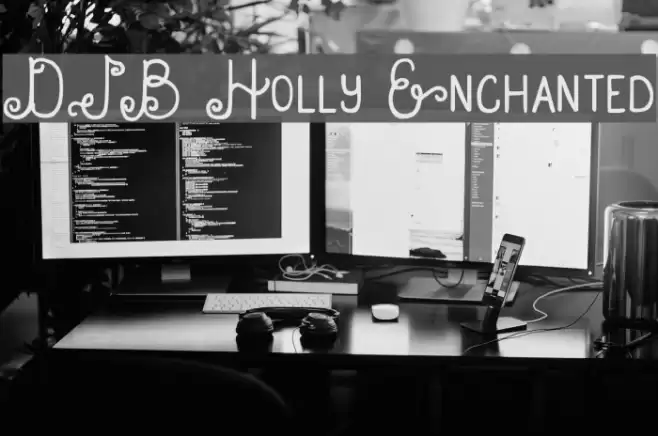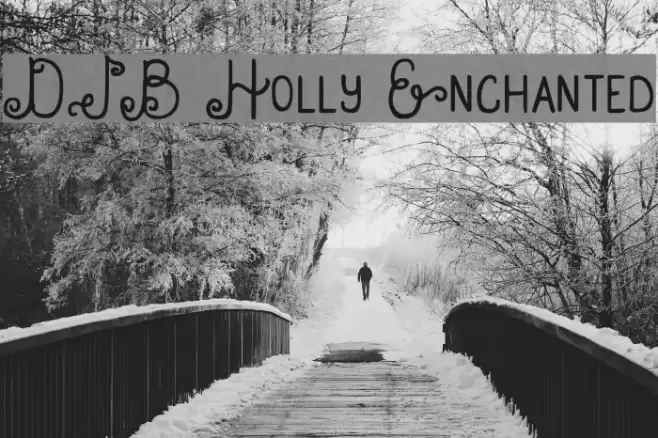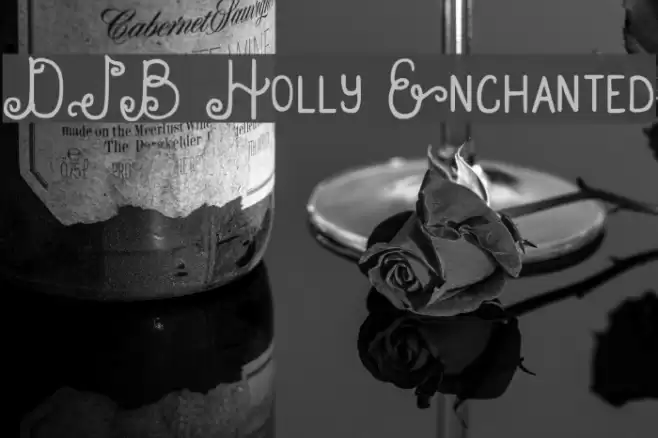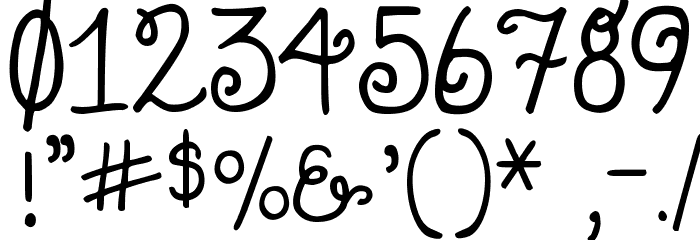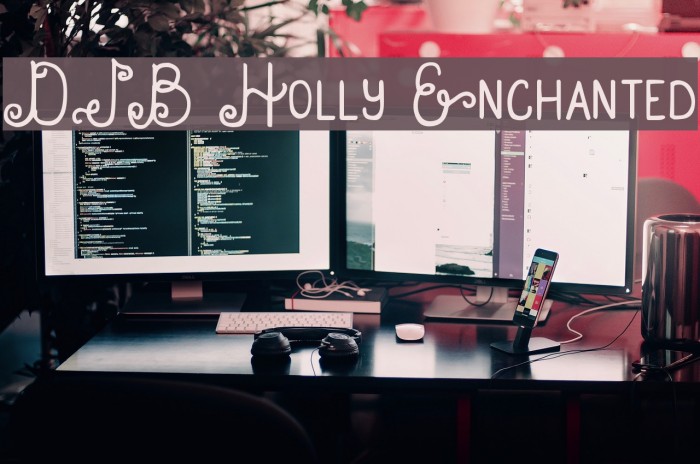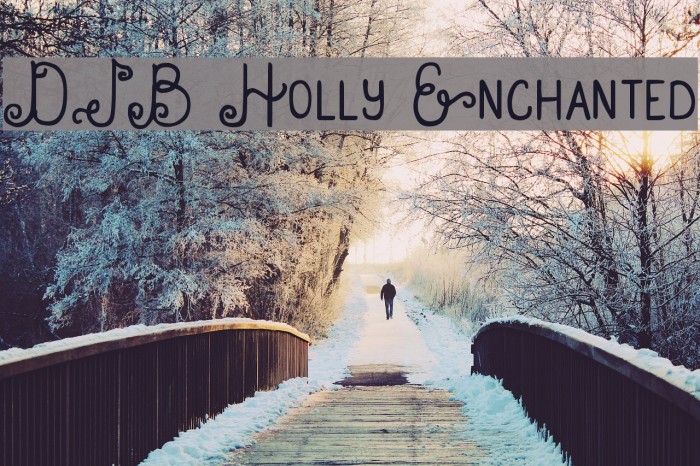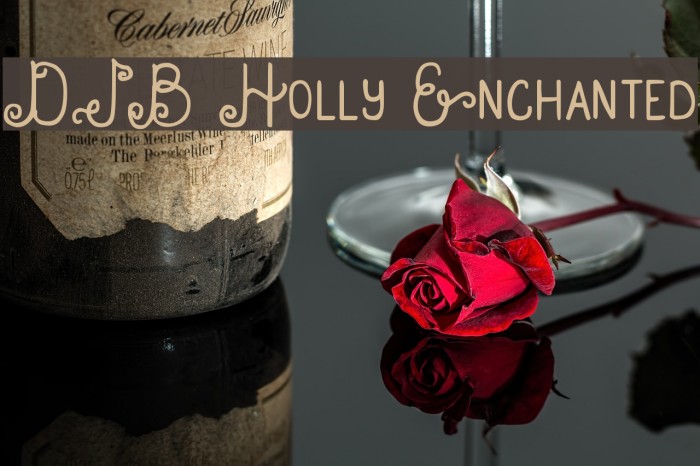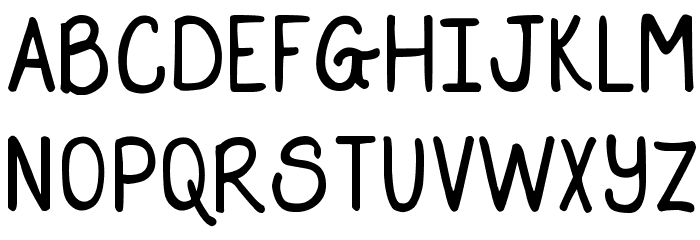
DJB Holly Enchanted Font
DJB Holly Enchanted Description
This whimsical font features a playful and enchanting style, characterized by its curly and decorative elements. The uppercase letters are adorned with unique swirls and loops, giving them a magical and fairy-tale-like appearance. The lowercase letters maintain a consistent style, with a slightly more straightforward design that complements the ornate uppercase. The numbers and special characters also carry the same playful aesthetic, making them suitable for creative and imaginative projects. The overall design is both charming and eye-catching, perfect for adding a touch of fantasy to any text.
A whimsical and enchanting font with curly, decorative elements from Uncategorized fonts.
- Proposed Projects: Ideal for children's books, fantasy-themed invitations, playful branding, and creative posters.
- Use Case: Headlines, Logos, Invitations